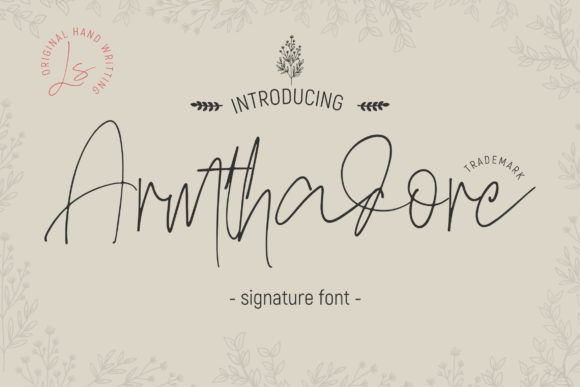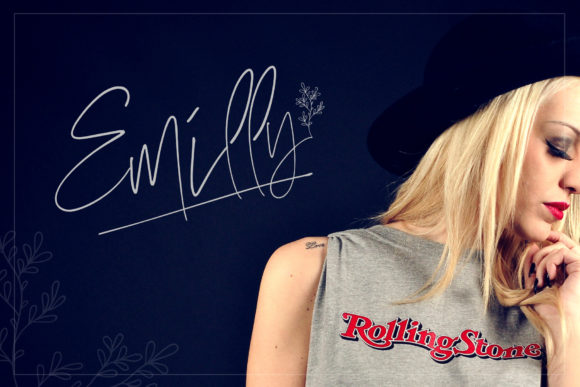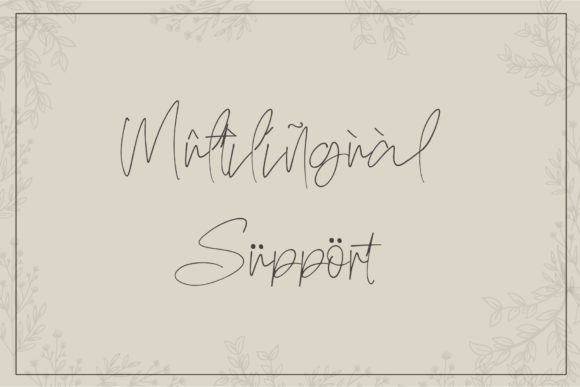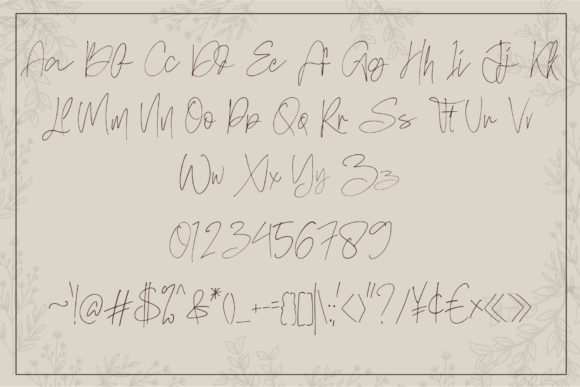
About Armthadore Font
Armthadore is a graceful and elegant handwritten script font that adds a touch of beauty and sophistication to any design. Its delicate and flowing letterforms make it particularly well-suited for various projects, including wedding invitations, thank you cards, quotes, greeting cards, logos, business cards, and more.
When it comes to wedding invitations, Armthadore brings a romantic and personalized feel to the design. The gentle curves and flourishes of the script give it an elegant and timeless appeal, perfectly complementing the atmosphere of a wedding celebration. Whether used for the couple’s names, the invitation wording, or even as a decorative element, Armthadore adds a touch of refinement to the design.
For thank you cards, Armthadore conveys a sense of gratitude and warmth. Its handwritten style adds a personal touch, allowing you to express your appreciation in a heartfelt and sincere manner. The graceful strokes and subtle details of the font enhance the overall sentiment of the message, making it even more meaningful.
Quotes and greeting cards also benefit from the charm of Armthadore. Its elegant and beautiful look elevates the words and adds a touch of sophistication to the design. Whether you’re creating inspirational quotes, birthday cards, or any other type of greeting card, Armthadore brings an element of style and grace.
Logos and business cards designed with Armthadore exude elegance and professionalism. The script font adds a human touch to the brand identity, making it more approachable and memorable. The unique and beautiful letterforms of Armthadore can help your business stand out and leave a lasting impression on your audience.
Overall, Armthadore is a versatile handwritten script font that enhances various design projects with its elegance and beauty. Its usage is not limited to wedding invitations, thank you cards, quotes, greeting cards, logos, and business cards, but extends to any design that could benefit from a handwritten touch. Whether you’re aiming for a romantic, personalized, or sophisticated look, Armthadore is an excellent choice that will make your designs truly stand out.